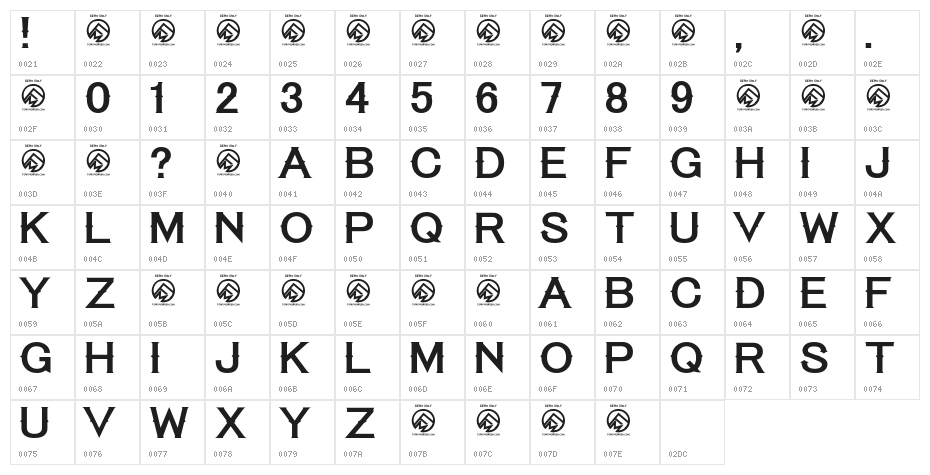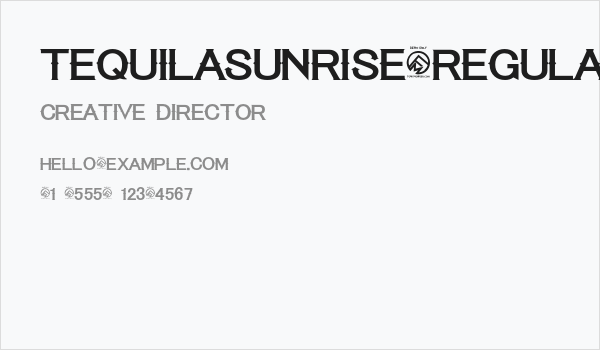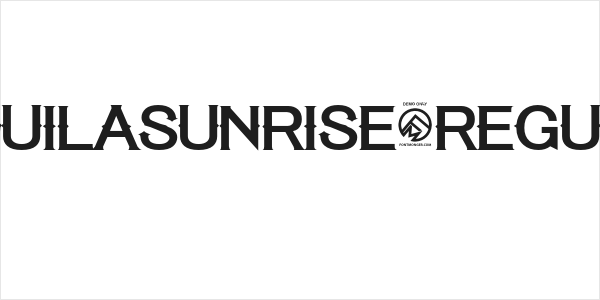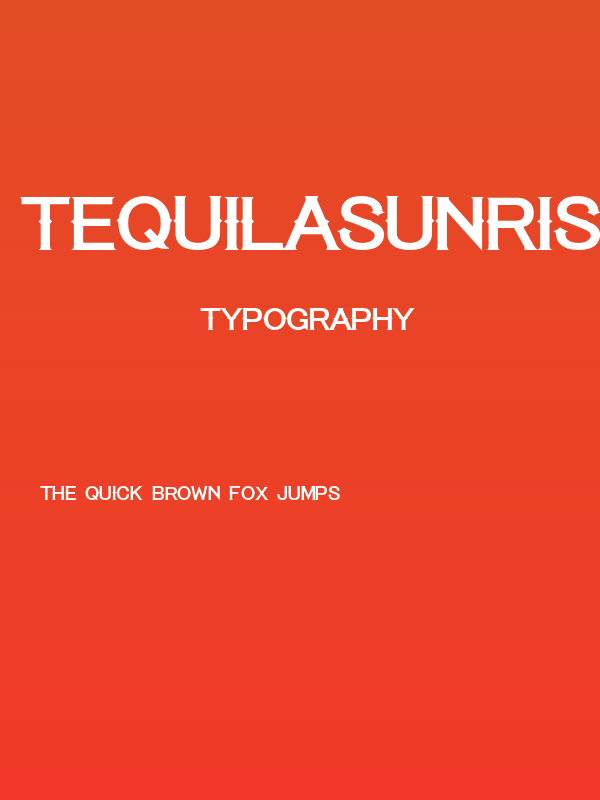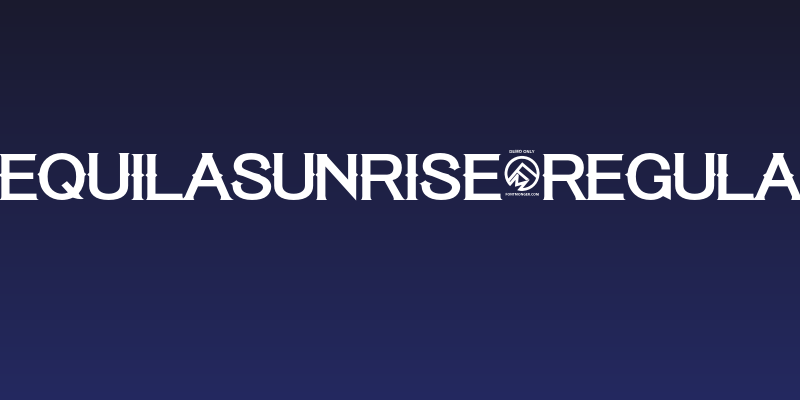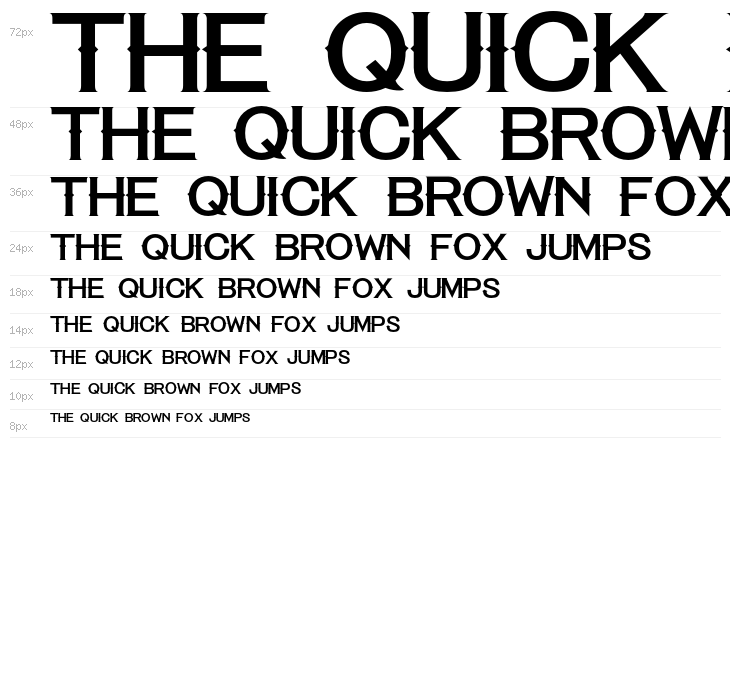
TequilaSunrise-Regular Font
TequilaSunrise-Regular Description
This font features a bold and striking design with a modern aesthetic. The characters are crafted with a strong presence, making them ideal for attention-grabbing headlines and impactful designs. The uppercase letters are particularly prominent, with a geometric influence that adds a contemporary edge. The numerals are equally bold, maintaining the consistency of the font's robust style. Special characters are included, enhancing the font's versatility for various design needs. The overall appearance is clean and professional, suitable for both digital and print media.